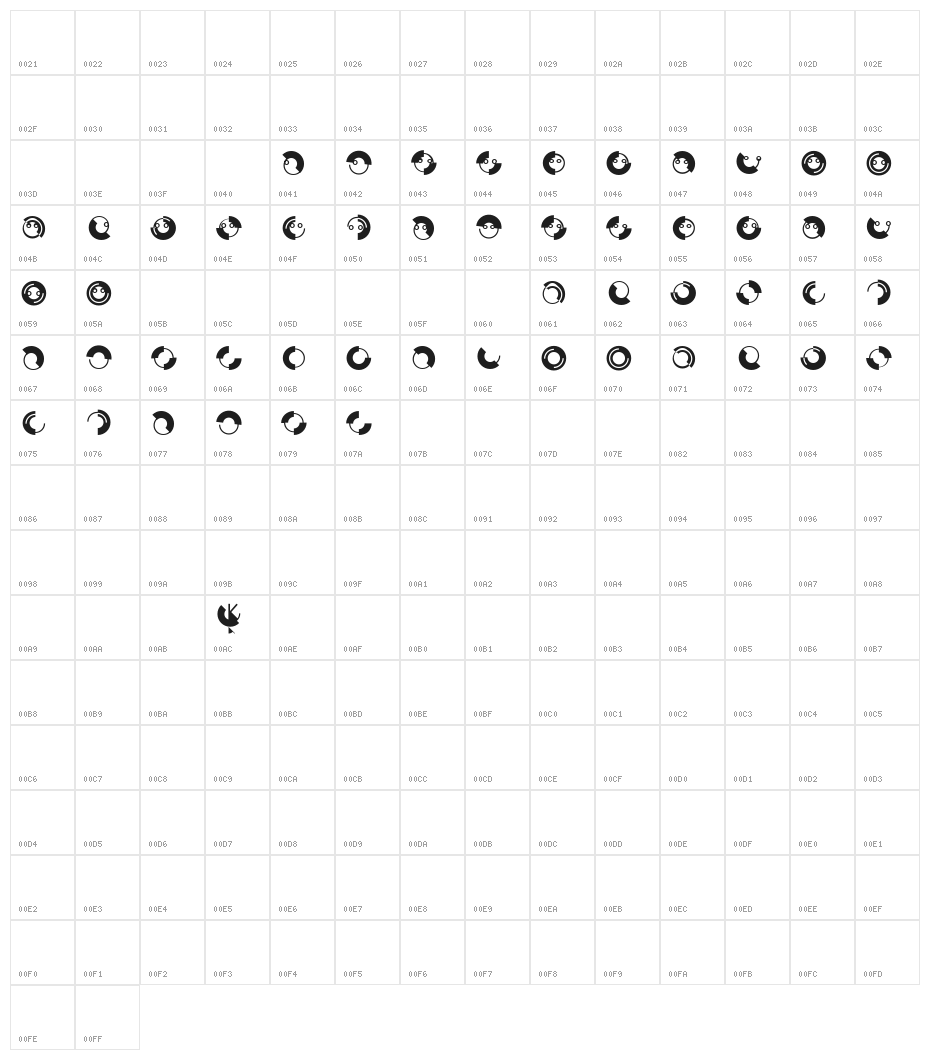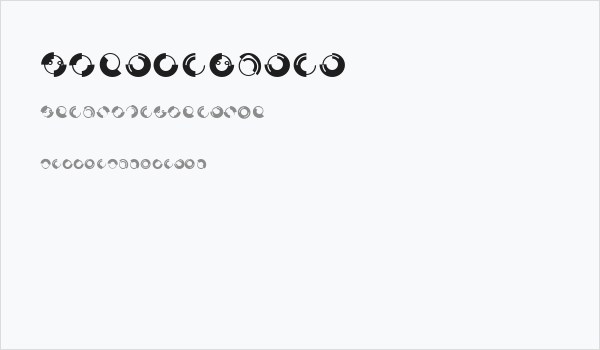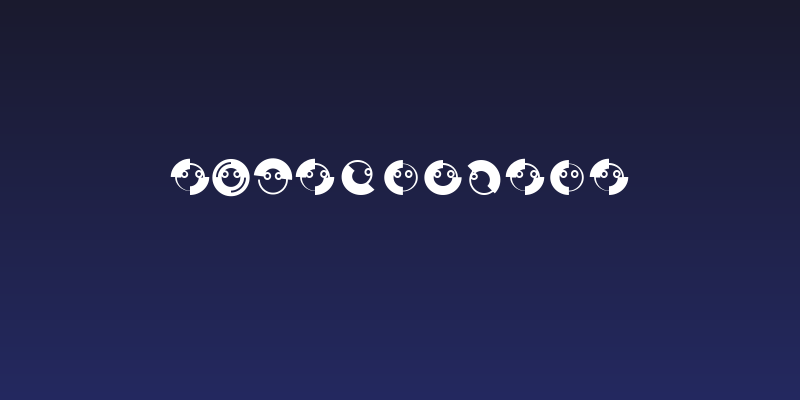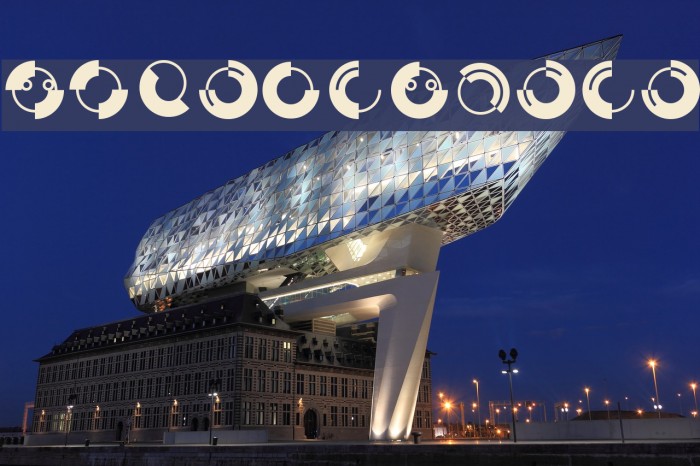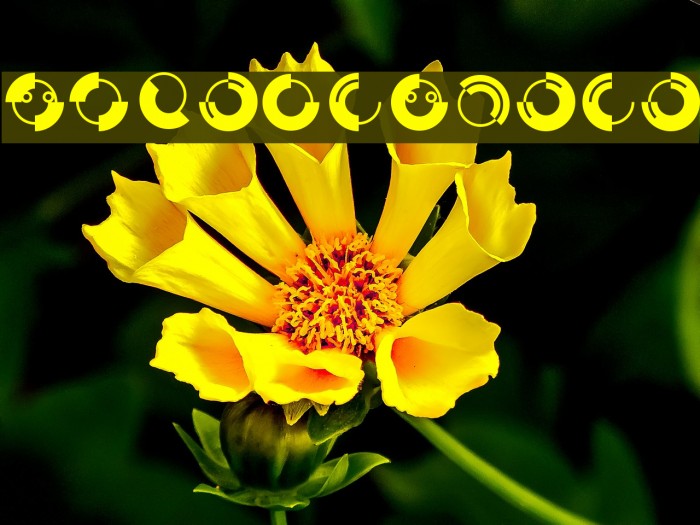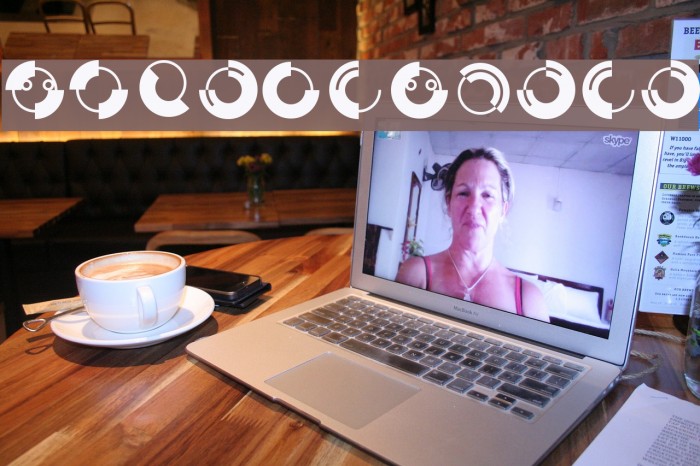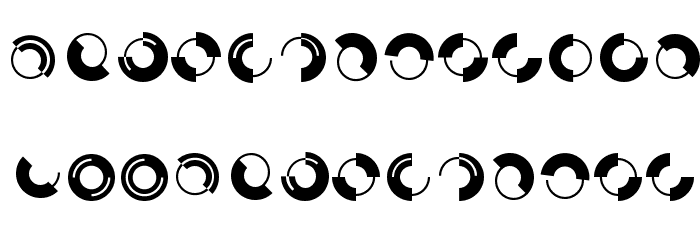
CircleFaces Font
CircleFaces Description
This unique and playful typeface features characters designed as circular faces, each with distinct expressions. The letters are composed of bold, thick strokes forming circular shapes with facial features like eyes and mouths, giving them a whimsical and cartoonish appearance. The design is highly decorative, with each character maintaining a consistent circular form, making it visually cohesive. The font's playful nature makes it stand out, offering a fun and engaging visual experience. Its distinct style is perfect for projects that require a touch of humor and creativity, such as children's books, playful branding, or themed event materials.
| Overall Style | Playful, Whimsical, Decorative |
| Use Case | Logos, Posters, Headlines |
| Proposed Projects | Ideal for children's books, playful branding, themed events, or creative posters. |